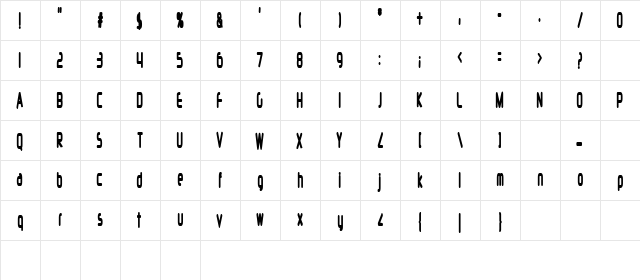
Silicon Carne Medium
Design Context for Silicon Carne Typeface
Silicon Carne is a composed and adaptable typeface that performs quietly and consistently across a wide range of design contexts.